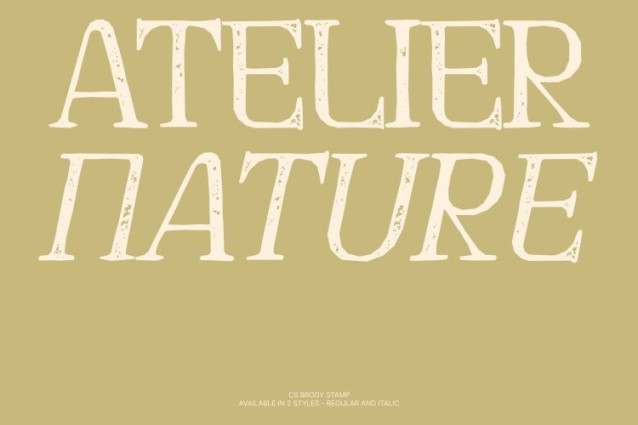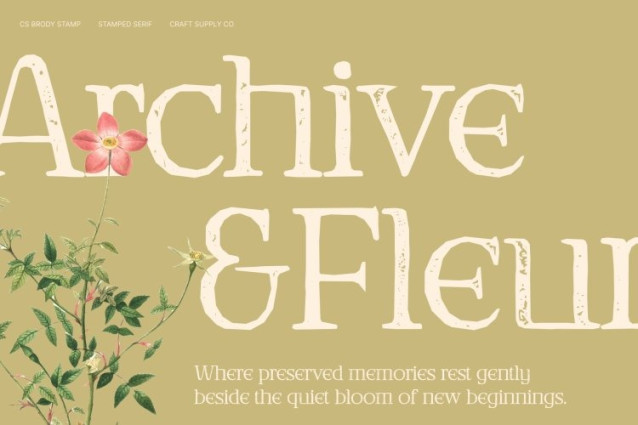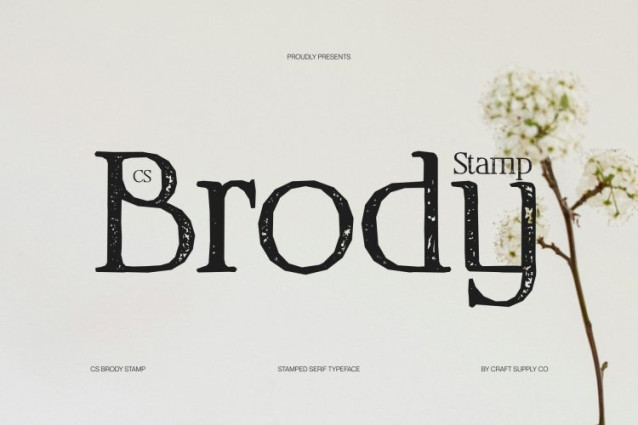
CS Brody Stamp Font
CS Brody Stamp Font – This is a modern serif font that gracefully blends the charm of classic typography with the clarity of contemporary design. Its sleek letterforms, refined proportions, and balanced composition create a sophisticated aesthetic suited for elegant visual communication. Enhanced with a subtle stamped texture, the font gains a handcrafted character that adds depth while maintaining its clean and polished structure.
Sharp Details and Slim Proportions
Featuring thin, sharp serifs and slim, well-balanced letterforms, delivers sophistication without overwhelming the layout. These delicate details evoke the elegance of traditional serif typefaces, while the textured stamp effect introduces a gentle vintage nuance that enriches its visual personality.
Inspired by Classic Typography, Refined for Today
Drawing inspiration from historical serif traditions, this font reinterprets timeless elegance through a modern lens. The addition of subtle texture brings warmth and character, creating a typeface that feels both classic and contemporary.
Ideal for Elegant and Professional Designs
Perfect for projects that require a tasteful, high-end appearance, this font offers a harmonious balance of charm, clarity, and textured sophistication. It enhances branding, editorial design, packaging, and invitations with a refined presence that leaves a lasting impression.